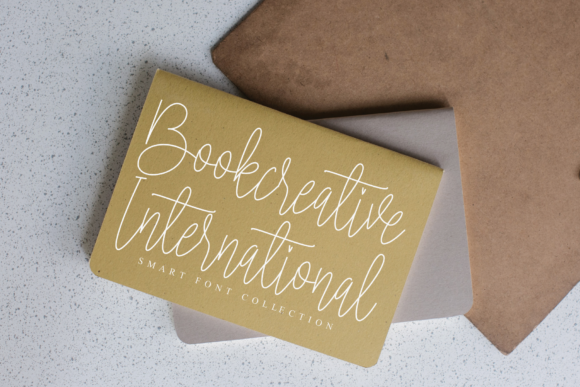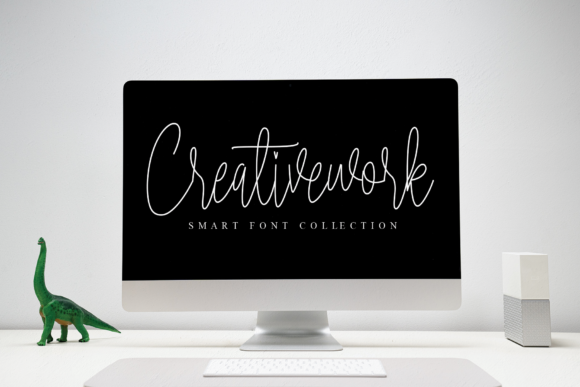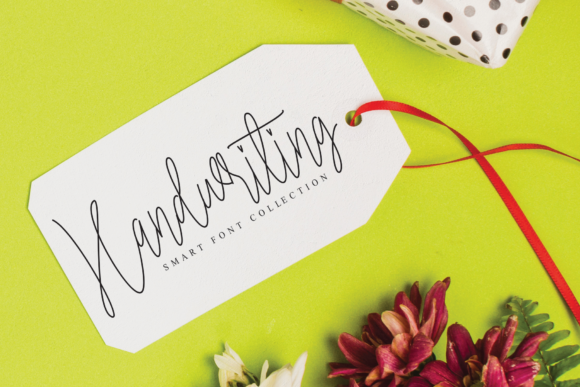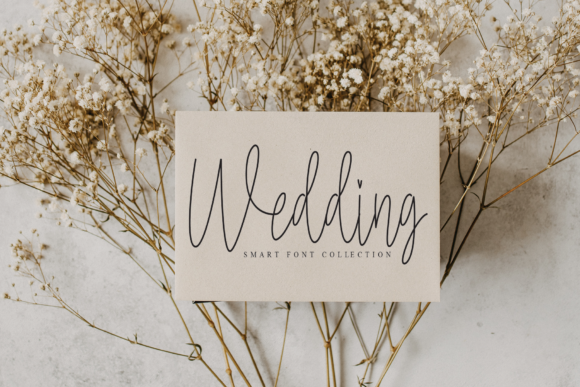
The Perfect Font for Your Masterpiece
Have you ever sat at your desk, staring at a blank page, and suddenly, a burst of creativity hits you? The ideas start flowing, and you can almost see the final product taking shape in your mind. That’s exactly what happens when you discover the Bellonitta Signature Font. This delicate and elegant handwritten font is a game-changer for designers, and once you try it, you’ll wonder how you ever managed without it.
Bellonitta Signature Font is more than just a font – it’s a way to express your unique style and add a touch of sophistication to any design. Its well-balanced letters make it incredibly versatile, allowing you to use it for a wide range of projects, from invitations and social media graphics to wedding stationery and branding materials. With the Bellonitta Signature Font, the possibilities are endless.
Bellonitta Signature Font Key Features
- Unique Characteristics: The Bellonitta Signature Font features a unique blend of modern and elegant script styles, with flowing connections and subtle flourishes.
Bellonitta Signature Font Review
I recently had the chance to work with the Bellonitta Signature Font, and I must say it’s a unique and stylish choice for any design project. ✨ The font’s elegant script and refined lines make it perfect for creating a sophisticated and high-end feel in your designs.
Here are some of the things that work well with this font:
- ✨ Versatility: Bellonitta Signature Font can be used for a wide range of designs, from wedding invitations to luxury brand logos.
- ✨ Elegant feel: The font’s script lines and refined edges give it a sense of sophistication and elegance.
- ✨ Easy to read: Despite its elegant feel, the font is still easy to read and understand, making it perfect for body text and headings.
However, I did notice a few limitations:
- ⚠️ Limited language support: The font only supports a limited number of languages, which may be a concern for designers working on international projects.
- ⚠️ Not ideal for bold text: While the font looks great in smaller sizes, it can become difficult to read when used in bold text.
Overall, I think the Bellonitta Signature Font is a great choice for designers looking to add a touch of elegance to their projects. With its versatility and sophisticated feel, it’s sure to impress. However, be mindful of its limitations, and use it wisely to get the best results.
For optimal results, use the Bellonitta Signature Font in combination with bold, italics, or all caps to add emphasis and visual interest.
Experiment with different font sizes and colors to create a unique and eye-catching design.
The Bellonitta Signature Font is ideal for:
- Social media graphics and posts